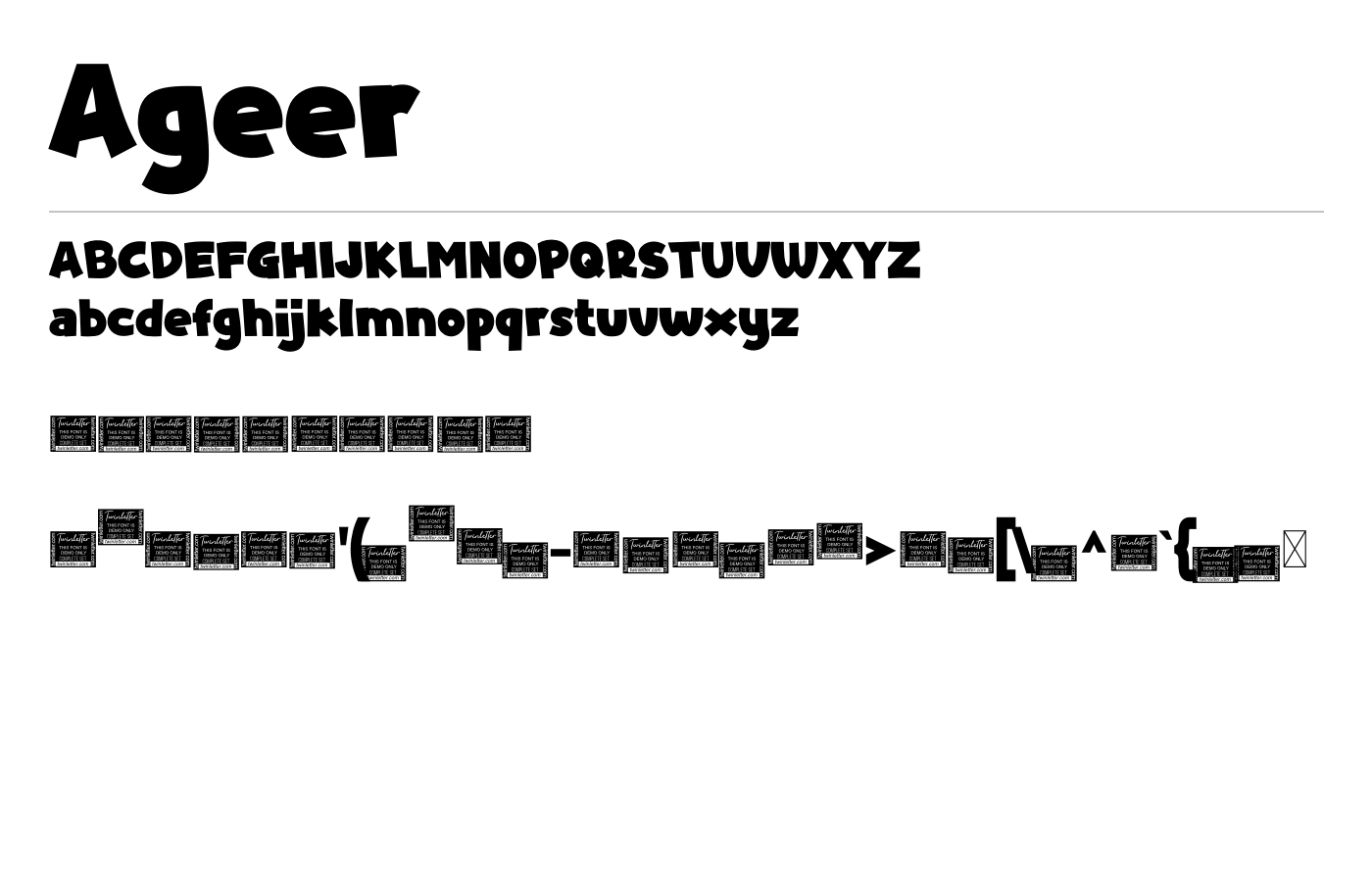
Ageer is a bold, playful sans serif font with a chunky, irregular style that adds a fun and informal vibe. Its thick strokes and quirky letterforms make it perfect for eye-catching headlines, logos, and creative projects that want to convey energy and approachability. This font works well in contexts where a lively, casual tone is desired, especially in branding, posters, and children's designs.
Ageer Font
About Ageer Font